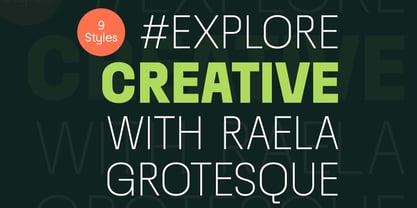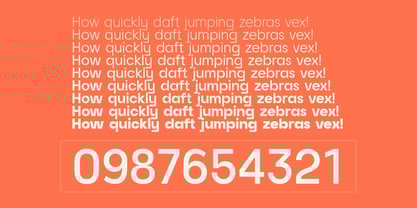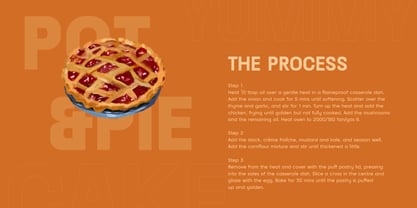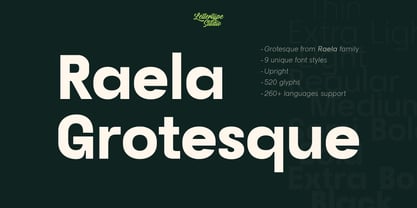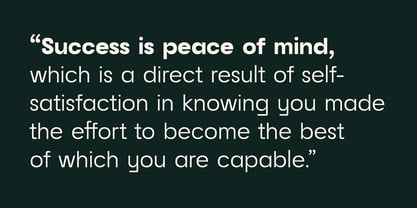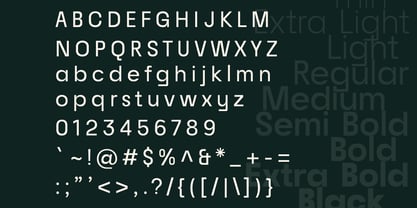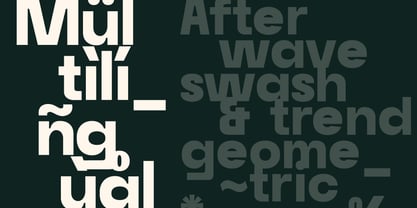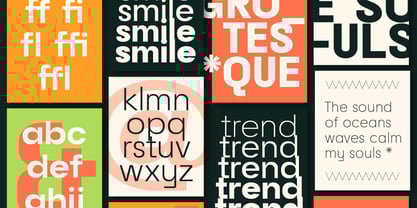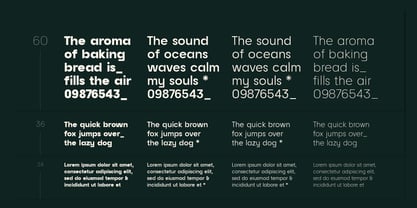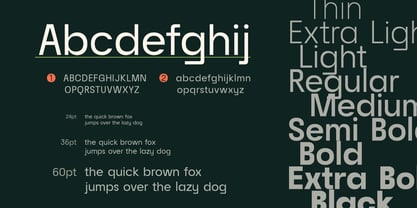
Raela Grotesque
by Lettertype Studio
The Raela Grotesque Font Family was designed by Diki Pradipta Tri Atmojo and published by Lettertype Studio. Raela Grotesque contains 9 styles and family package options. More about this family
Raela Grotesque seamlessly blends geometric shapes' clean, modern elegance with the timeless appeal of Grotesque design principles. Designed for readability and versatility, its proportional width, flat apex, closed aperture, and straight-cut stroke ends enhance its contemporary appeal with a bold and strong personality.
Raela Grotesk includes 9 weights, ranging from Thin to Black. OpenType features include Stylistic Alternates, figure variations (fractions, tabular lining, numerator, denominator), and broad Latin language support.